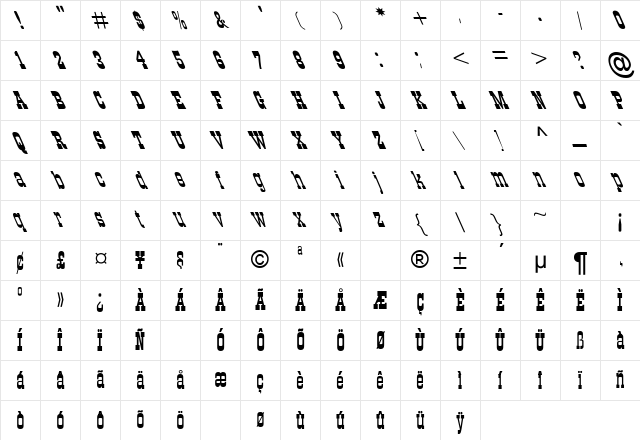
MFigaro Lefty Regular Free Font
MFigaro Lefty Regular
Design Context for MFigaro Lefty
MFigaro Lefty is a composed and adaptable typeface that performs quietly and consistently across a wide range of design contexts.
Pro Tip: Use MFigaro Lefty in both headline and body roles to test its range before committing to a single application.